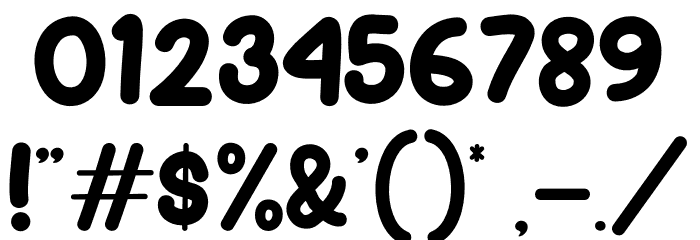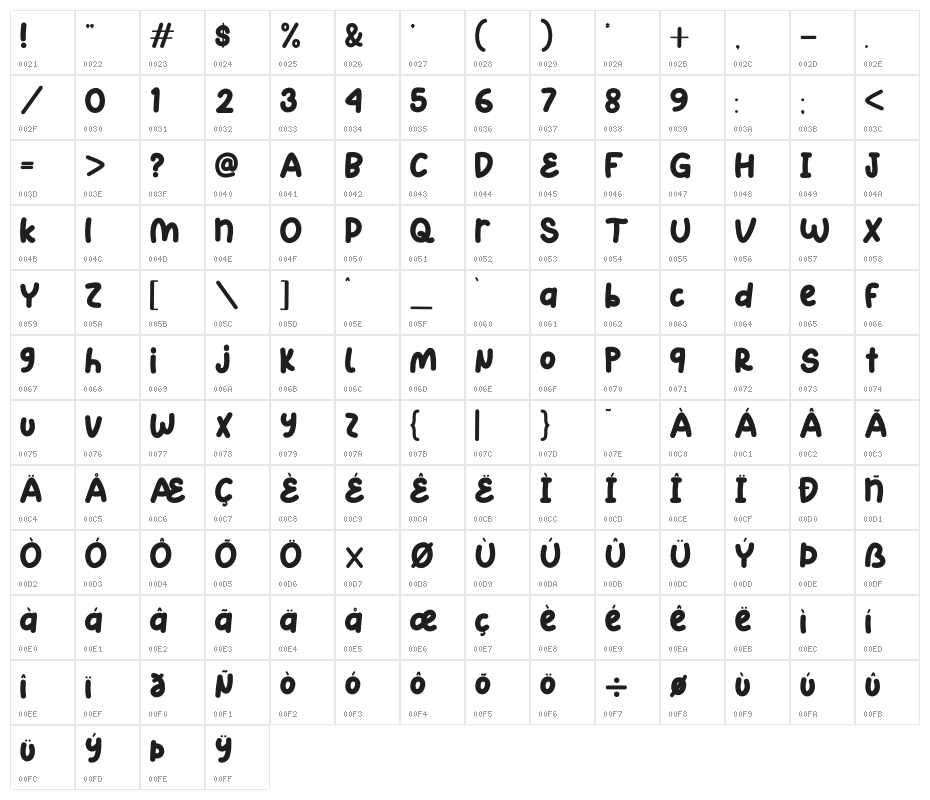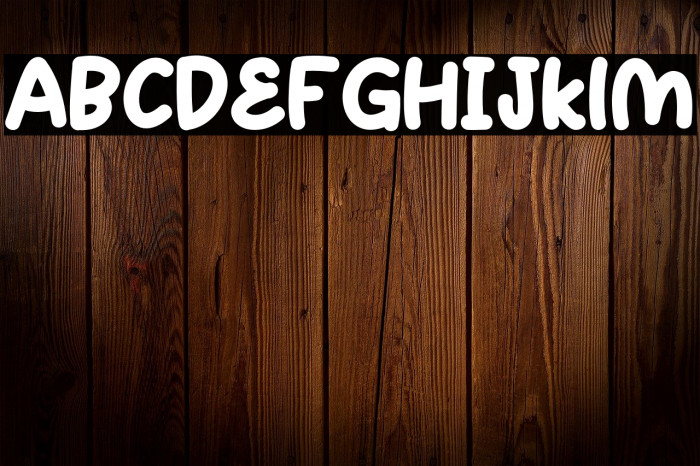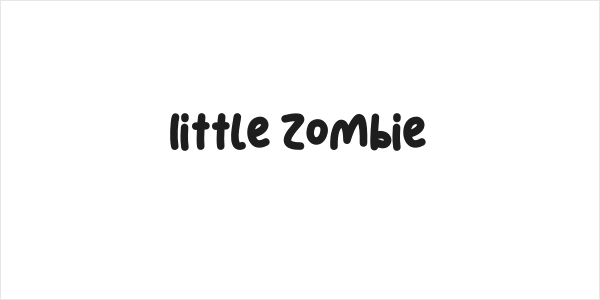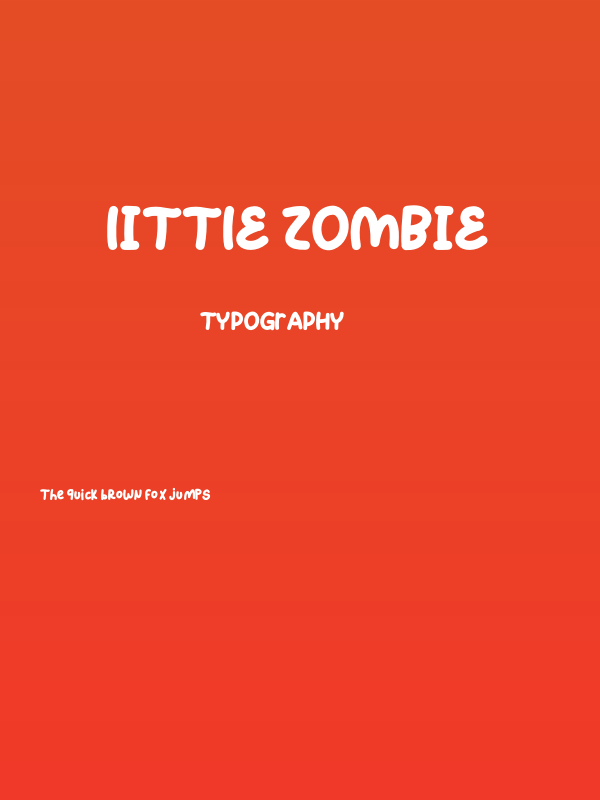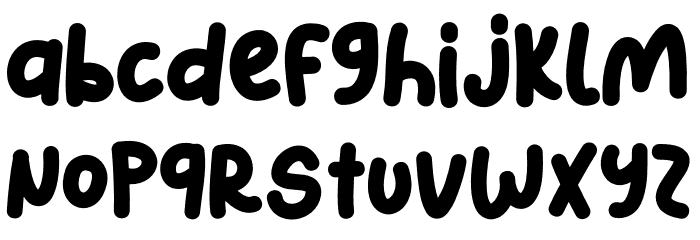
Little Zombie Font
Little Zombie Description
This playful and bold font features a whimsical, rounded style with a hand-drawn appearance. The characters are thick and uniform, creating a friendly and approachable look. The uppercase and lowercase letters maintain a consistent style, with rounded edges and a slightly irregular baseline, adding to the casual and informal feel. Numbers and special characters follow the same design principles, ensuring a cohesive appearance across all glyphs. The font's boldness and unique style make it stand out, ideal for projects that require a fun and engaging visual element.
| Proposed Projects | Ideal for children's books, playful branding, greeting cards, and casual event invitations. |